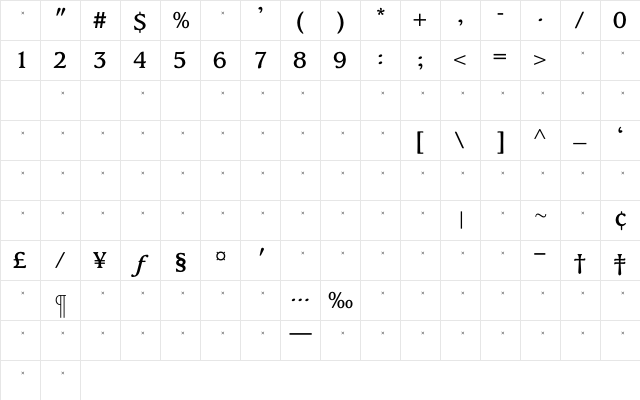
KingsrowMediumTab Regular
Design Context for KingsrowMediumTab
KingsrowMediumTab is a composed and adaptable typeface that performs quietly and consistently across a wide range of design contexts.